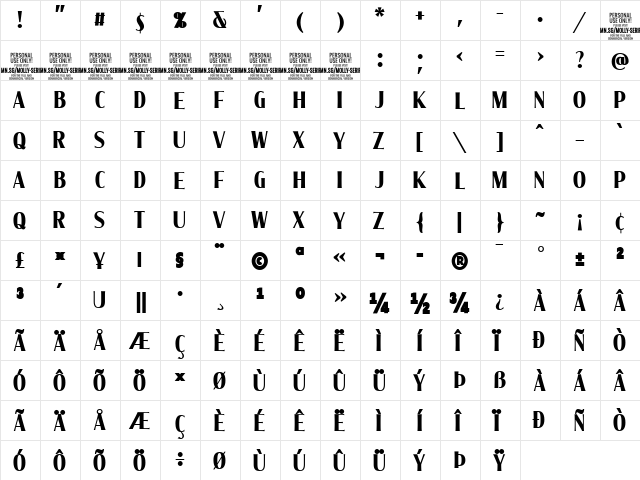
Molly Serif XC PERSONAL Bold
| Foundry | Mans Greback |
| Designer | Mans Greback |
Design Context for Molly Serif XC PERSONAL Typeface
Molly Serif XC PERSONAL brings classic typographic sensibility to the table — its serifs and measured letterforms reflect centuries of print heritage. The heavy weight commands attention and anchors typographic hierarchies.
Pro Tip: Set Molly Serif XC PERSONAL with slightly loose tracking in headlines to let each letterform's detail read clearly at display sizes.